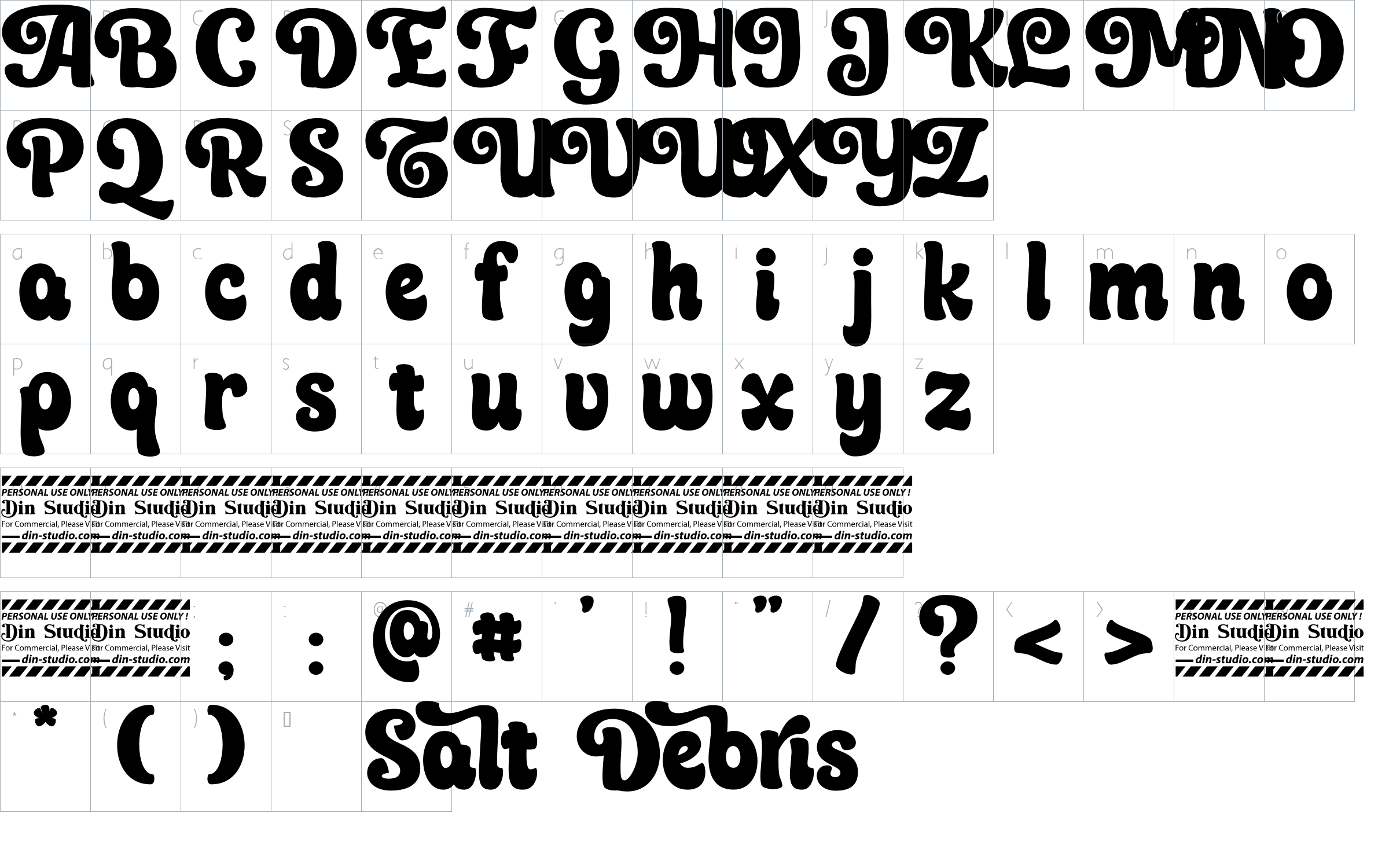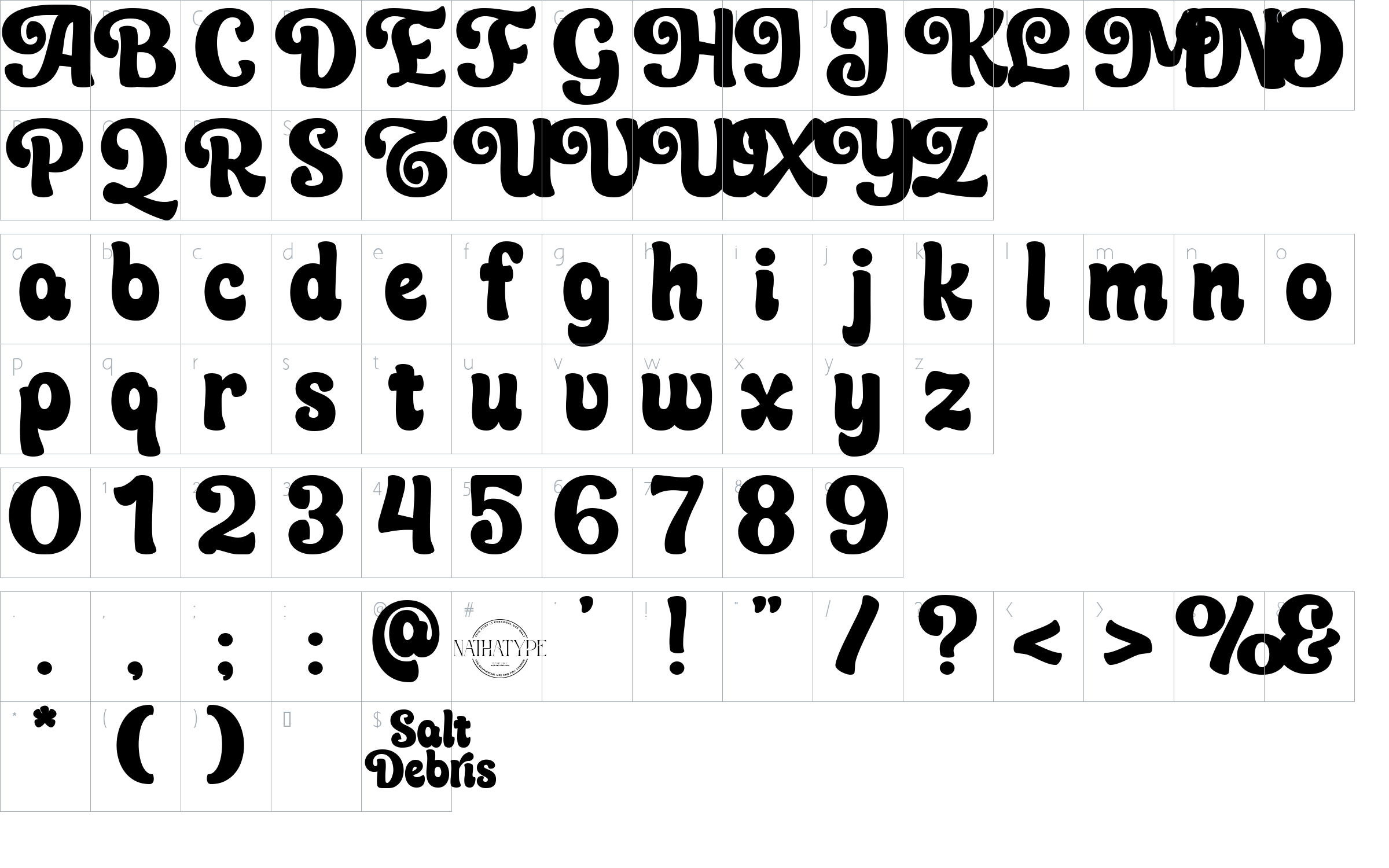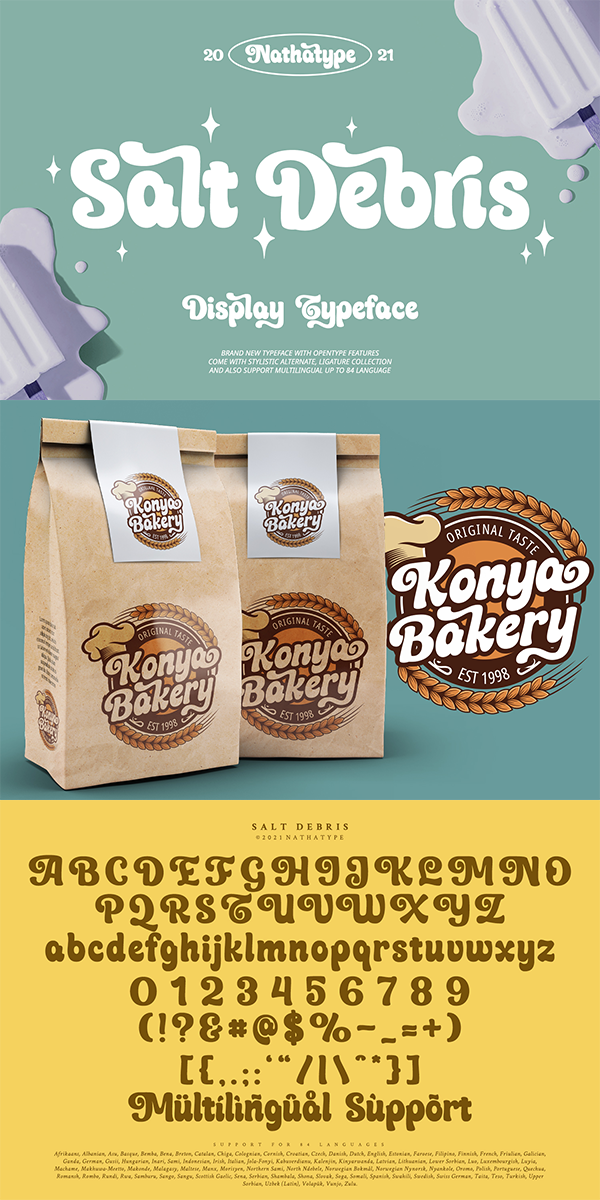
Salt Debris Font
About Salt Debris
Salt Debris is a display font designed to bring your branding to life and add a touch of elegance, cheerfulness, and style. We hope that through this playful font, you can maximize your designs! As a result, you’ll communicate the perfect idea to your audiences or clients. It is surely the best choice for branding projects, book/magazine cover, fashion designs, quotes, packagings, or even as a stylish text overlaying any background images.
Our font always includes Multilingual Support to make your branding reach a global audience. See the previews above to get to know how to use them. Happy designing!